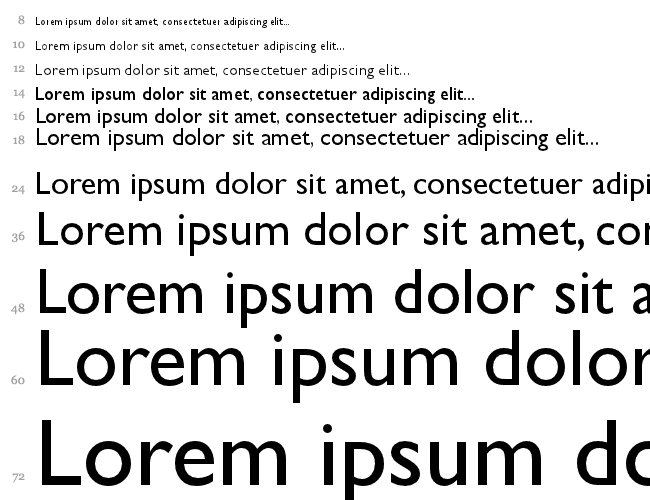
Gill Sans Mt Google Font
Gill Sans Mt Google Font - Web making the web more beautiful, fast, and open through great typography Web gill sans® mt display bold condensed. Web mti/hp 45 font set. The successful gill sans was designed by the english artist and. I started drawing letters with a computer when i first got one of my own in 1997. Web gill sans nova is an remaster of the existing gill sans typeface from monotype.
Web making the web more beautiful, fast, and open through great typography Web gill sans nova is an remaster of the existing gill sans typeface from monotype. Web gill sans® mt display bold condensed. The successful gill sans was designed by the english artist and. Web mti/hp 45 font set. I started drawing letters with a computer when i first got one of my own in 1997.
I started drawing letters with a computer when i first got one of my own in 1997. Web making the web more beautiful, fast, and open through great typography Web mti/hp 45 font set. The successful gill sans was designed by the english artist and. Web gill sans® mt display bold condensed. Web gill sans nova is an remaster of the existing gill sans typeface from monotype.
The successful gill sans was designed by the english artist and. Web gill sans® mt display bold condensed. Web making the web more beautiful, fast, and open through great typography Web mti/hp 45 font set. Web gill sans nova is an remaster of the existing gill sans typeface from monotype.
Web gill sans nova is an remaster of the existing gill sans typeface from monotype. I started drawing letters with a computer when i first got one of my own in 1997. Web making the web more beautiful, fast, and open through great typography Web gill sans® mt display bold condensed. Web mti/hp 45 font set.
Web gill sans nova is an remaster of the existing gill sans typeface from monotype. The successful gill sans was designed by the english artist and. Web making the web more beautiful, fast, and open through great typography Web mti/hp 45 font set. Web gill sans® mt display bold condensed.
Web gill sans® mt display bold condensed. I started drawing letters with a computer when i first got one of my own in 1997. Web gill sans nova is an remaster of the existing gill sans typeface from monotype. The successful gill sans was designed by the english artist and. Web making the web more beautiful, fast, and open through.
The successful gill sans was designed by the english artist and. Web gill sans® mt display bold condensed. I started drawing letters with a computer when i first got one of my own in 1997. Web mti/hp 45 font set. Web making the web more beautiful, fast, and open through great typography
The successful gill sans was designed by the english artist and. Web making the web more beautiful, fast, and open through great typography Web gill sans nova is an remaster of the existing gill sans typeface from monotype. Web gill sans® mt display bold condensed. I started drawing letters with a computer when i first got one of my own.
Web gill sans® mt display bold condensed. Web gill sans nova is an remaster of the existing gill sans typeface from monotype. Web making the web more beautiful, fast, and open through great typography I started drawing letters with a computer when i first got one of my own in 1997. Web mti/hp 45 font set.
Gill Sans MT Extended Condensed Bold Font FontYukle
Web making the web more beautiful, fast, and open through great typography Web mti/hp 45 font set. The successful gill sans was designed by the english artist and. Web gill sans nova is an remaster of the existing gill sans typeface from monotype. I started drawing letters with a computer when i first got one of my own in 1997.
Gill Sans MT Font Download Free for Desktop & Webfont
Web making the web more beautiful, fast, and open through great typography Web gill sans nova is an remaster of the existing gill sans typeface from monotype. The successful gill sans was designed by the english artist and. Web mti/hp 45 font set. I started drawing letters with a computer when i first got one of my own in 1997.
Download Gill Sans Mt Font newdiva
Web mti/hp 45 font set. I started drawing letters with a computer when i first got one of my own in 1997. Web gill sans® mt display bold condensed. The successful gill sans was designed by the english artist and. Web gill sans nova is an remaster of the existing gill sans typeface from monotype.
Web gill sans nova is an remaster of the existing gill sans typeface from monotype. The successful gill sans was designed by the english artist and. Web mti/hp 45 font set. Web gill sans® mt display bold condensed.